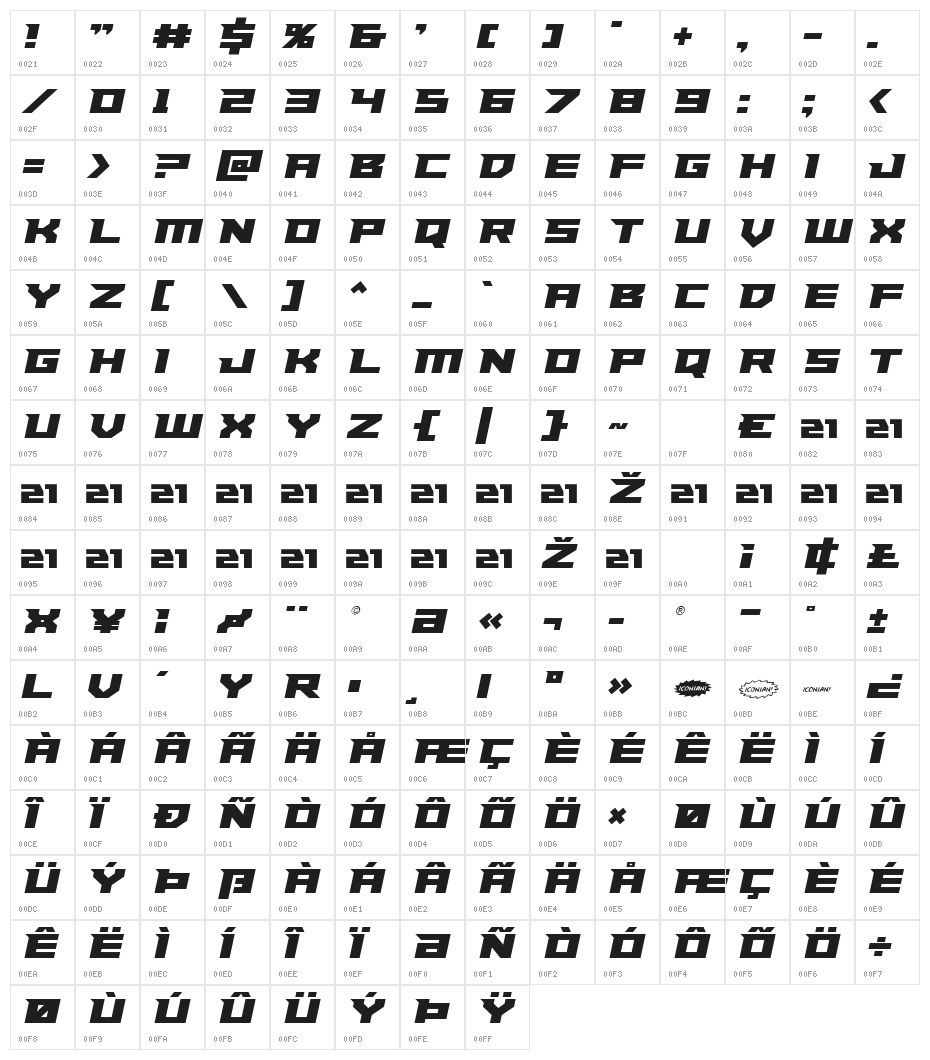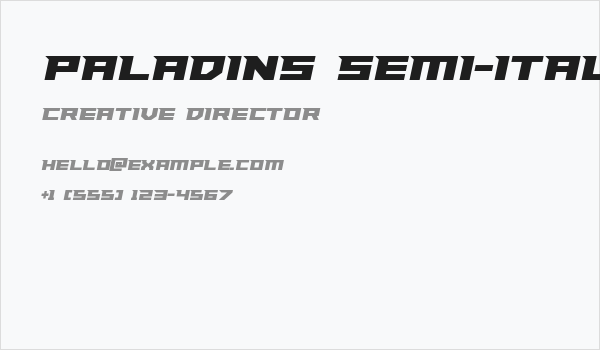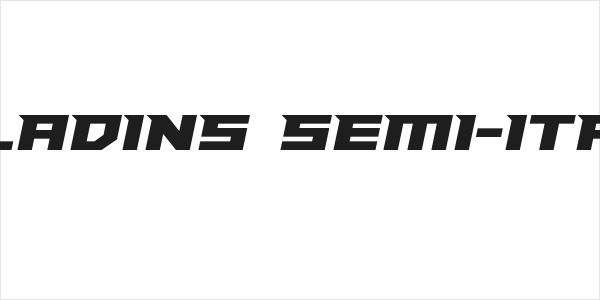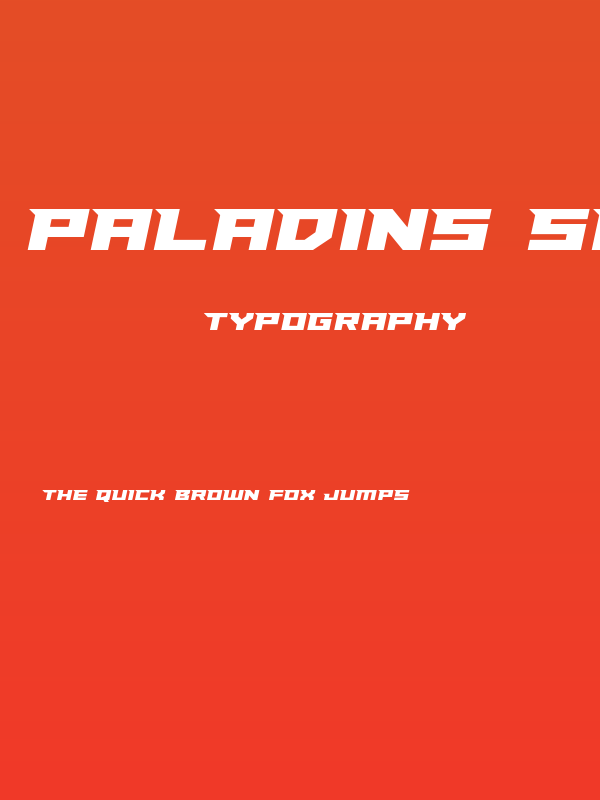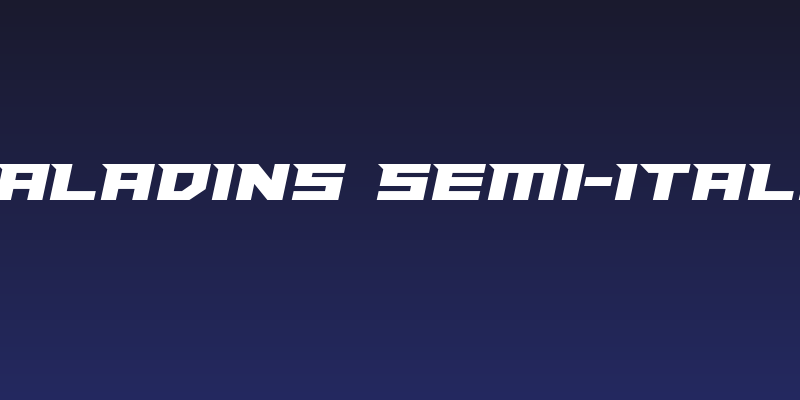
Paladins Semi-Italic Font
Paladins Semi-Italic Description
This font features a bold and dynamic style with sharp, angular edges and a semi-italic slant. The characters are designed with a futuristic and aggressive appearance, making them stand out with their strong geometric forms. The uppercase and lowercase letters maintain a consistent style, with a slight forward tilt that adds a sense of motion and energy. The numbers and special characters follow the same design principles, ensuring uniformity across all glyphs. The font's boldness and unique style make it suitable for attention-grabbing designs.
| Proposed Projects | Ideal for video game titles, sports branding, posters, and any project needing a bold, modern look. |